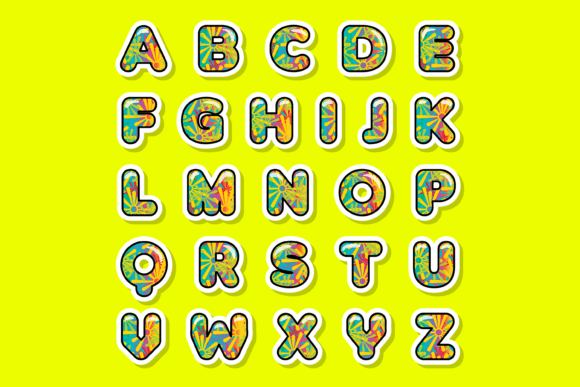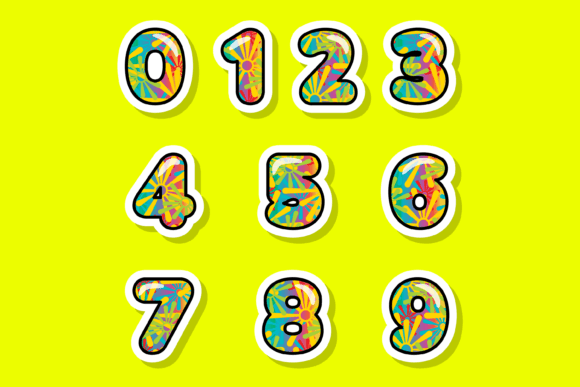
Introduction to Bugaboo Font
Bugaboo is an incredibly cool and fun color font.
Whether you use it for custom designs, DIY crafts, or just any creation that requires a lovely touch, this font will be an amazing choice Note.
Key Features of Bugaboo Font
Why Choose Bugaboo Font?
Bugaboo Font offers exceptional quality and versatility, making it a valuable addition to your design toolkit. Whether you’re creating for personal projects or commercial use, Bugaboo Font delivers professional results.